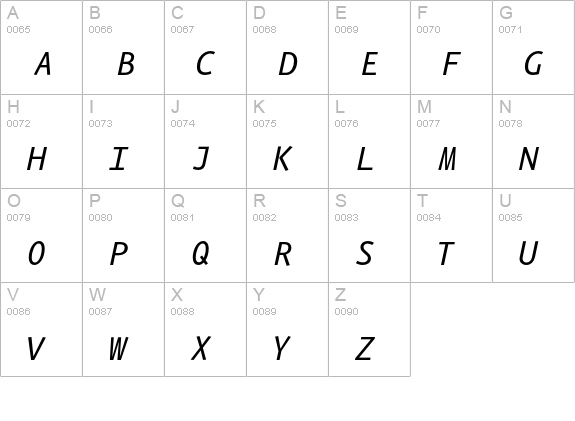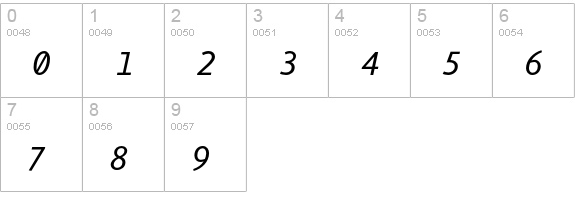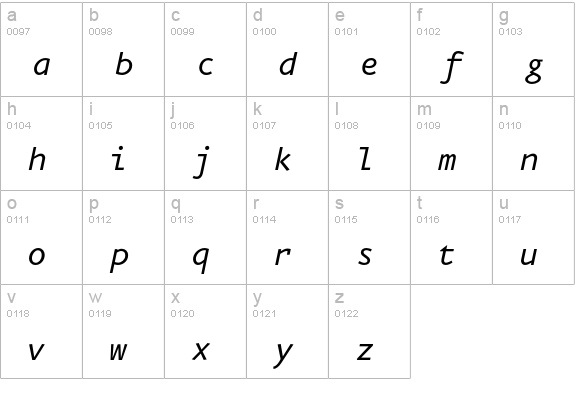
Eureka Mono Italic is a distinctive, italic variant in the Eureka typeface family \xE2\x80\x94 well suited to design and typography projects.
Eureka Mono Italic font is a sleek and modern typeface that exudes sophistication and elegance. Its clean lines and subtle curves make it perfect for a variety of design projects, from branding to editorial layouts. The italic style adds a touch of flair and personality to any text, making it stand out without being overpowering. What sets Eureka Mono Italic font apart is not just its style, but also the fact that it is available for free. That's right, you can download this stunning font at no cost from FontsMarket.com. Whether you're a designer looking to add a unique touch to your work or a business owner wanting to elevate your brand, Eureka Mono Italic font is a versatile and timeless choice that won't break the bank. Don't miss out on this opportunity to enhance your projects with this beautiful typeface today.